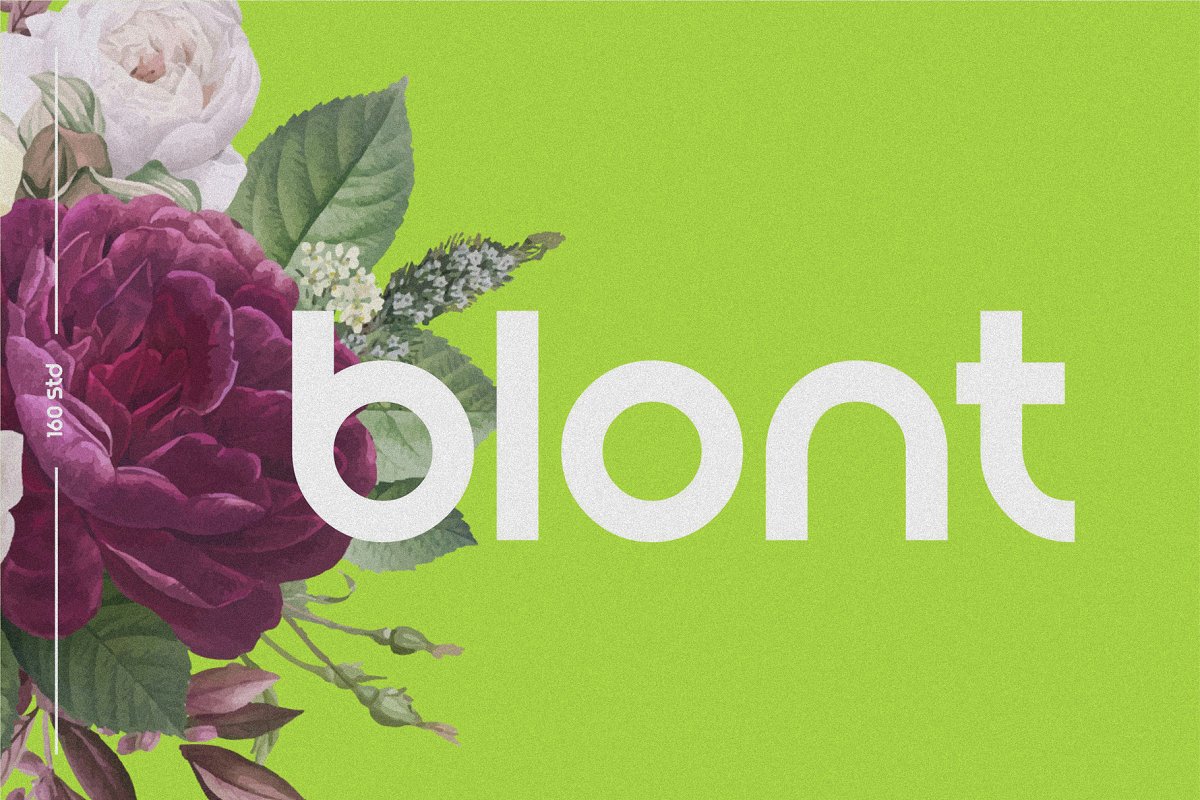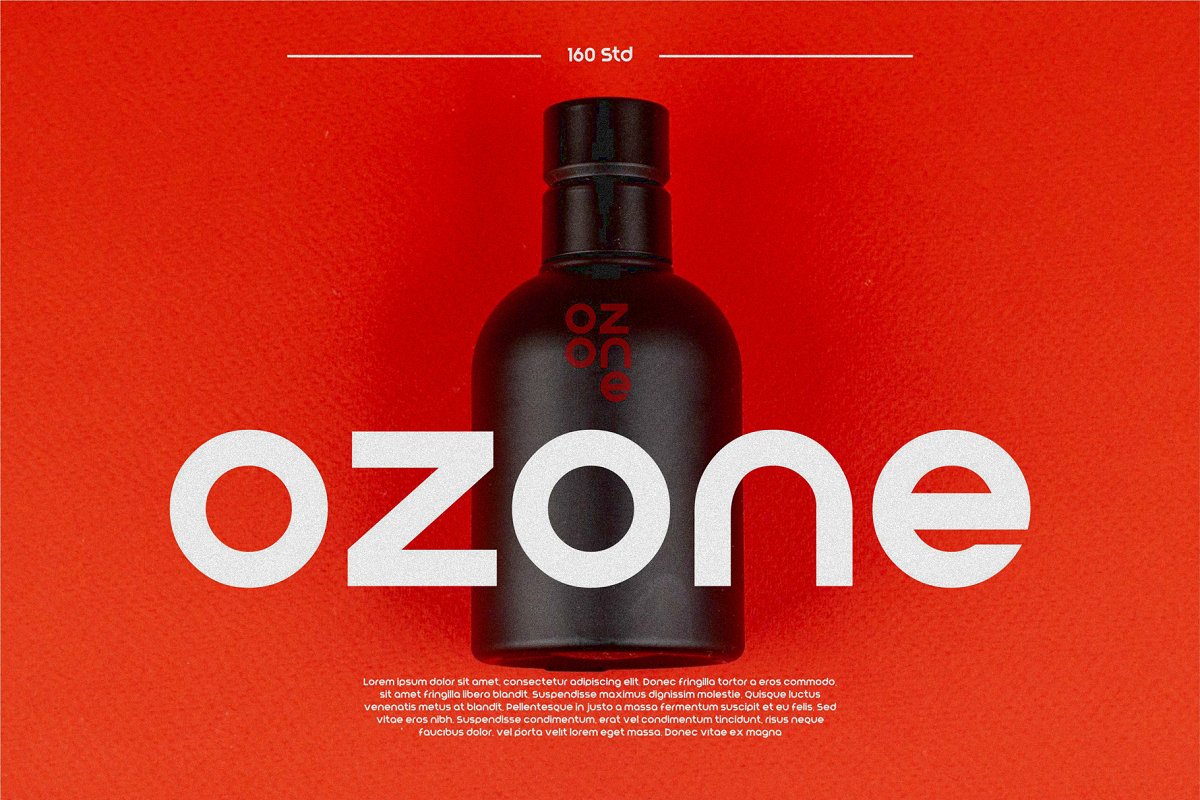
About the Blont | Modern & Clean Logo Font
BlontPerfect for logos, but also suaitable for headlines, titles and posters, comes with alternates to make unique, you can choose the best for you, -OTF & TTF FONT-WEB FONT VERSIONS-LETTERS, NUMBERS, PUNCTUATION, ACCENTSCHECK OUT OUR LIMITED OFFER ENTIRE SHOP FONT BUNDLE!!! 160 Studio Font Bundle | 95% OFF:https://crmrkt, com/xyDK9jIf you’ve got any questions dont hesitate to drop me messageThank you